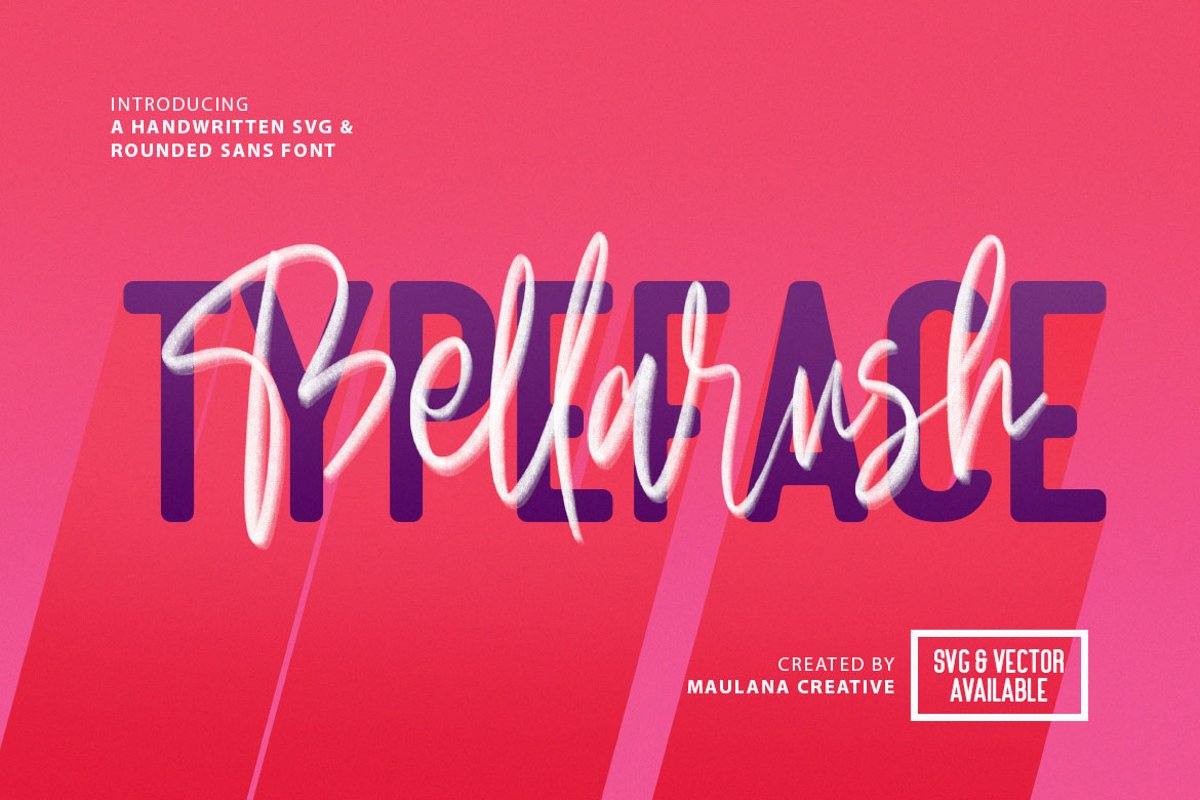
Give your designs an authentic brush handcrafted feel. "Bellarush" is perfectly suited to signature, stationery, logo, typography quotes, magazine or book cover, website header, flyer, clothing, branding, packaging design and more.